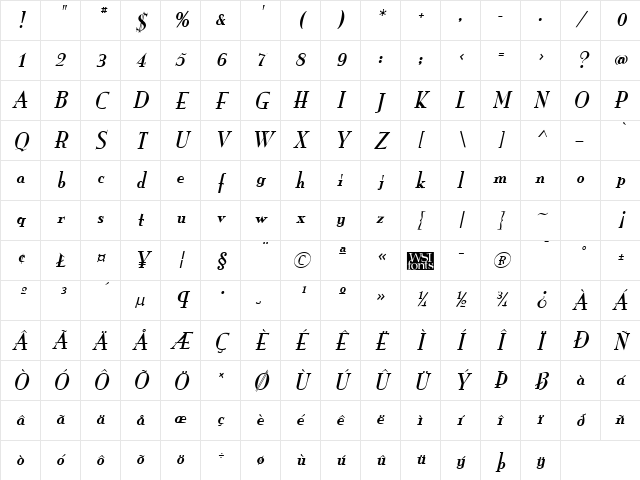
Monarch is a composed and adaptable typeface that performs quietly and consistently across a wide range of design contexts. The slanted form adds forward momentum and visual energy.
Pro Tip: Use Monarch for emphasis, pull quotes, and subheadings where its slanted energy can add rhythm to the layout.